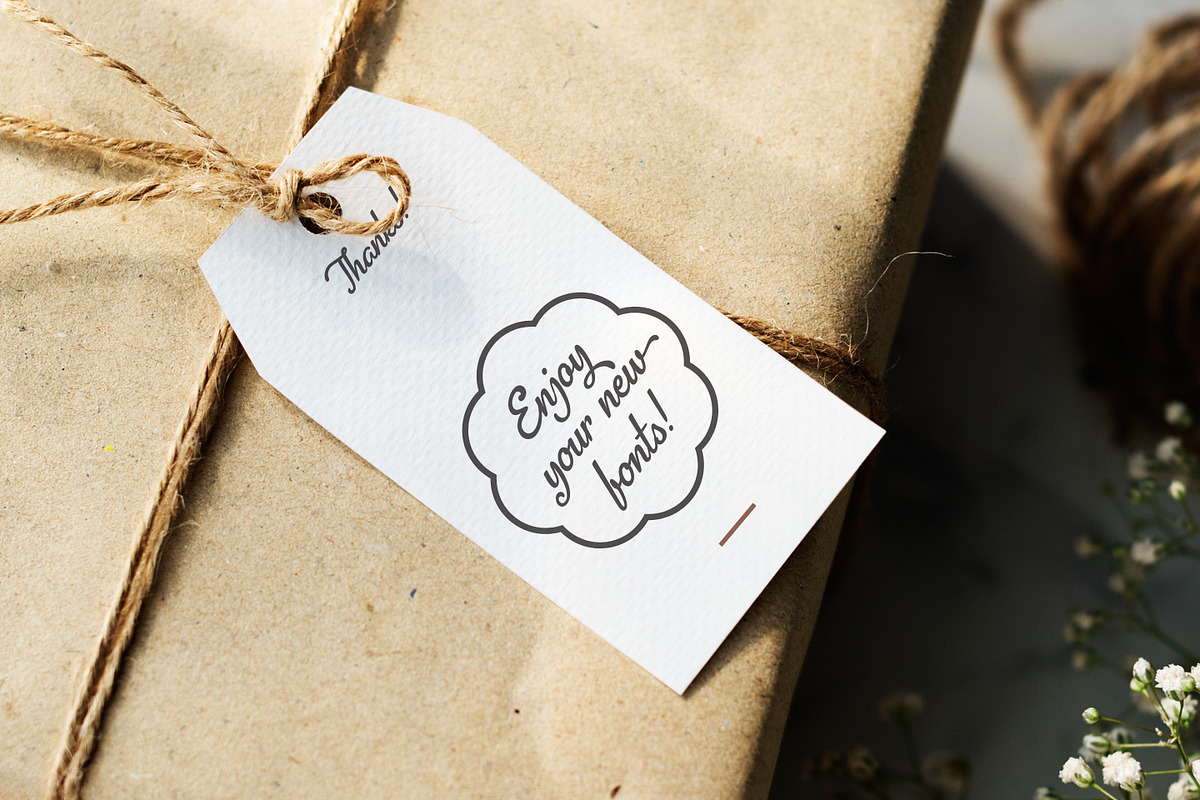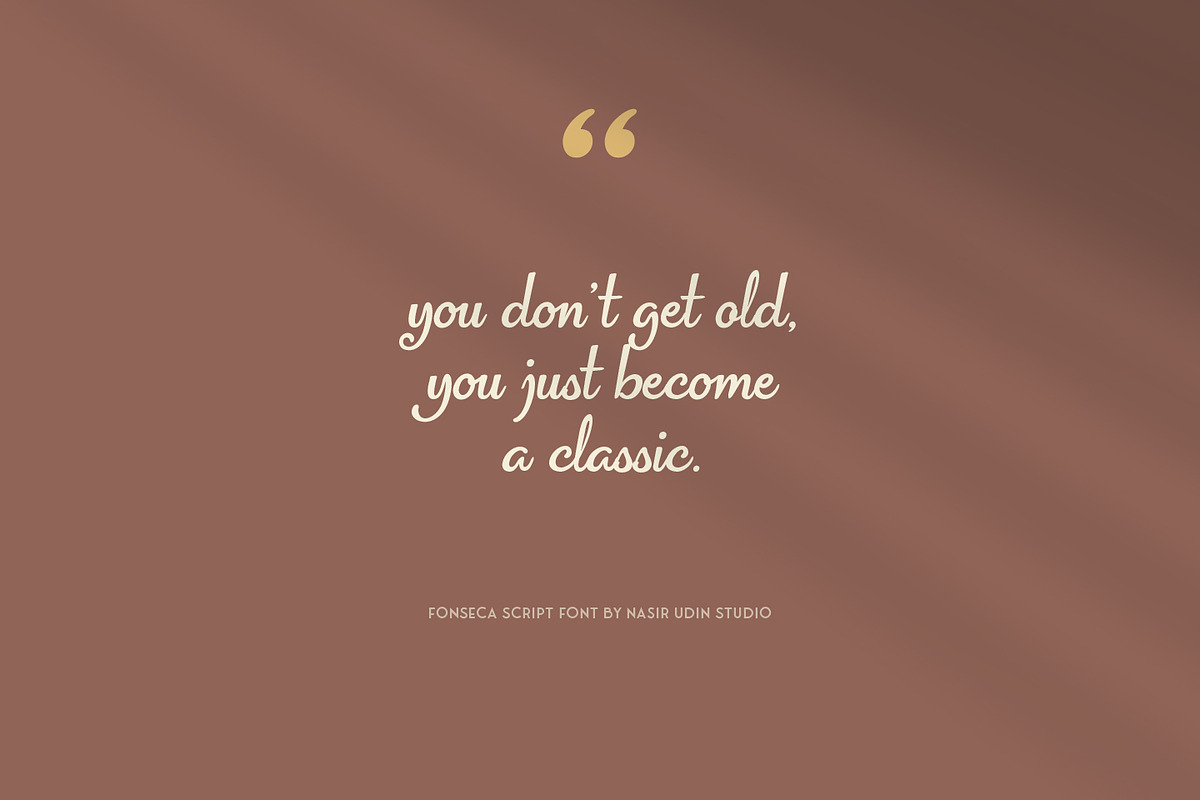
Fonseca Script
Introducing Fonseca Script, a charming handwritten font with a retro feel. Its dynamic moves will give your design an attractive touch.
Tones of this font are good vibes, fun, chic, travel vibe, nostalgic. Perfect for branding, quotes, social media, packaging, and many more!
Stylistic Alternates & Swashes - Each lower-case character has stylistic alternate and ‘end-swash’ version, use this in your design to give it a custom-feel styling. These features are accessible via any software with Opentype capabilities.
Oh, this font is perfectly paired with any vintage bold sans serif fonts, especially in poster designs.